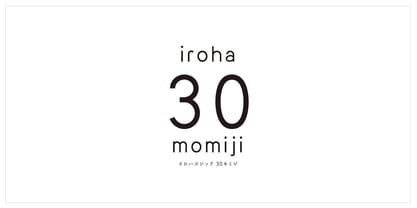
iroha 30momiji StdN
iroha 30momiji is a kana that incorporates the rhythmic movement of brush strokes. The curves of the kana and the straight lines of the kanji create a delightful harmony. iroha kanji are common. The design is simple, with straight lines in mind. There are 12 kana types in total.
Experience the joy of using different kana characters. When you look at the characters, thoughts and ideas naturally come to mind. Why did it take this form? How would I do it? For example, the font “iroha gothic” from Kijima Type Foundry has 12 different kana characters.Just as there are “voice actors” who convey words through their voices, there should also be “character actors” who convey words through characters. This font was created with that idea in mind. Experience the unique charm of Japanese, which combines kanji and kana, through this font.The richness of language will surely uplift your spirit.